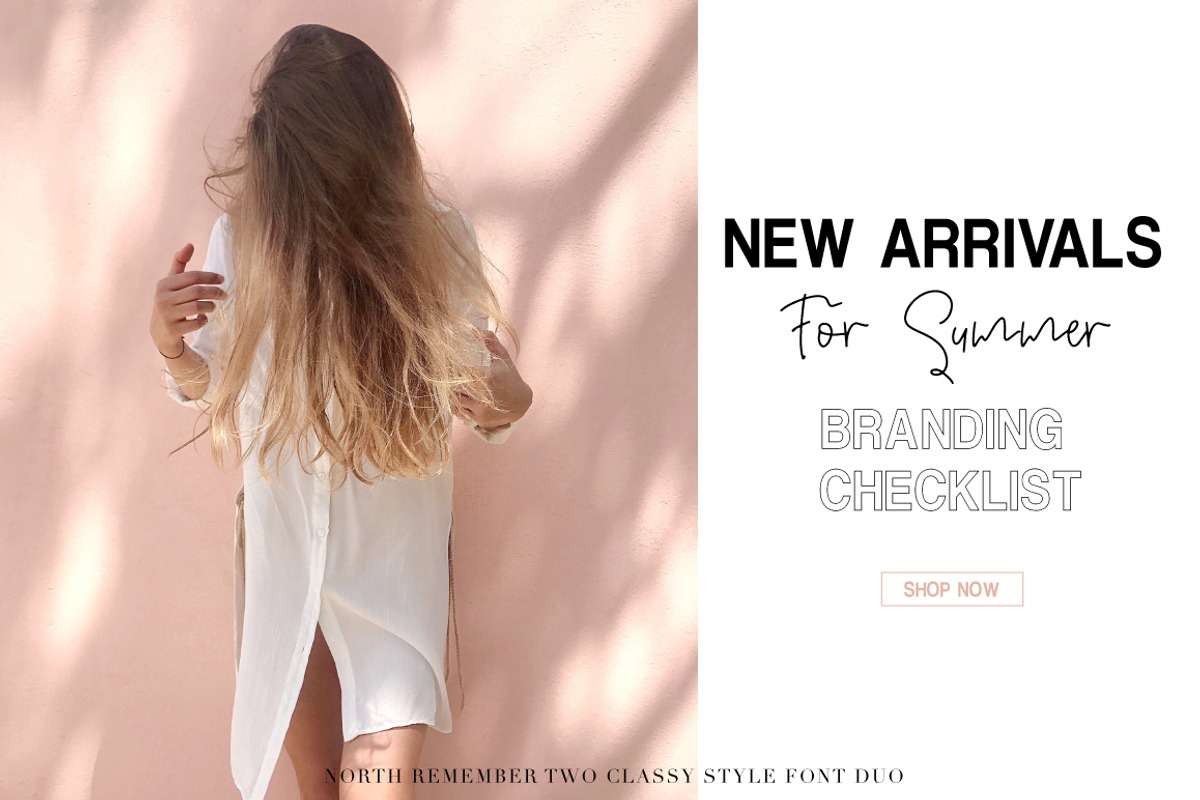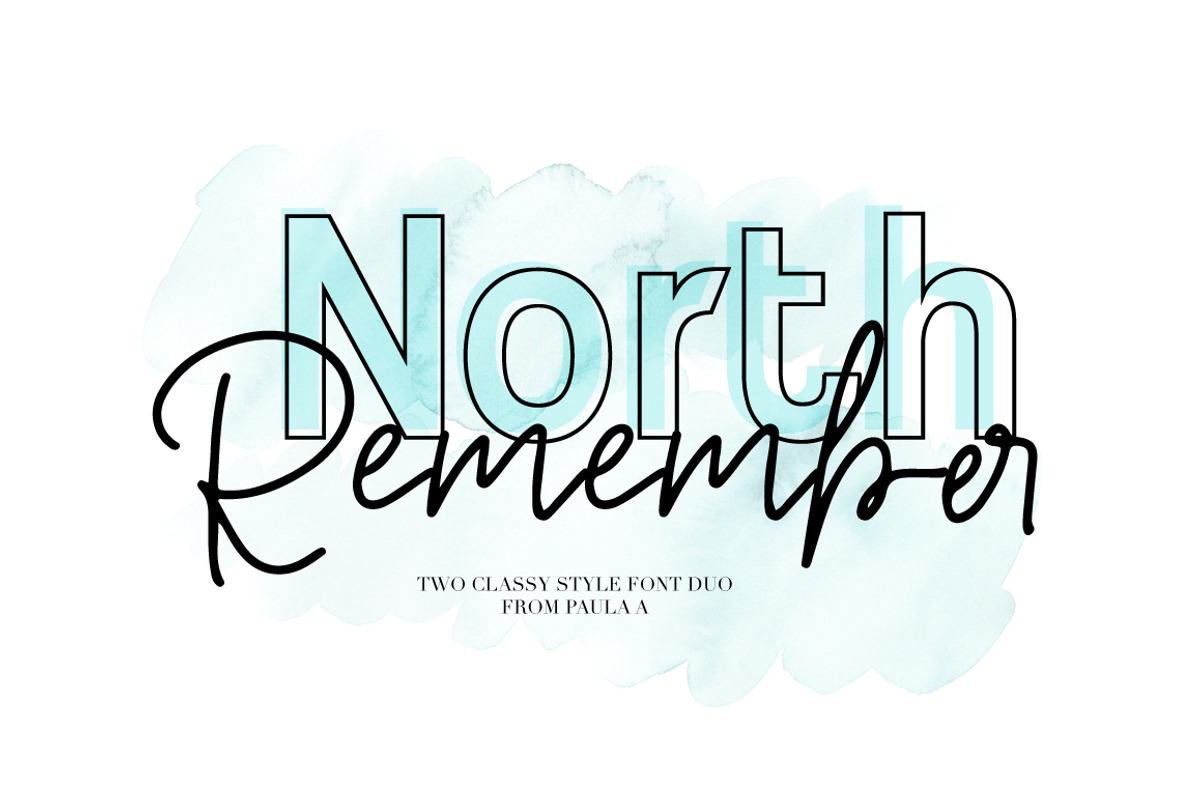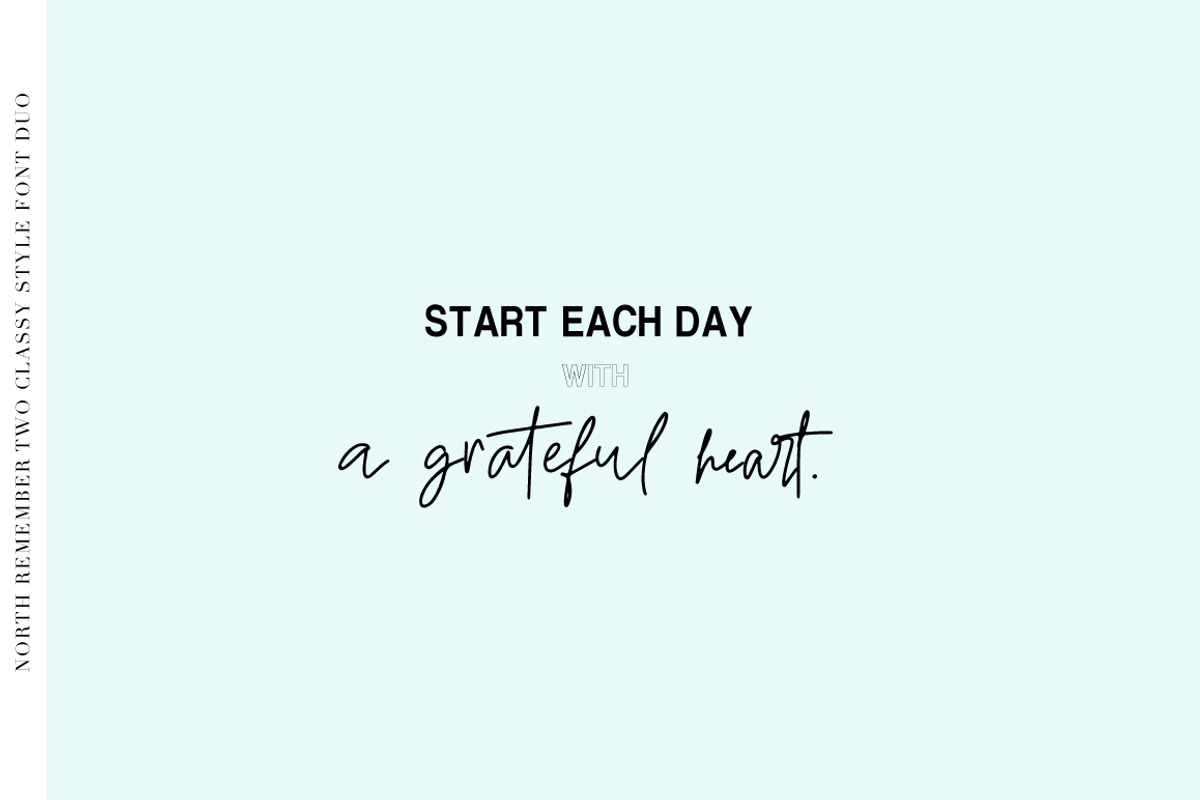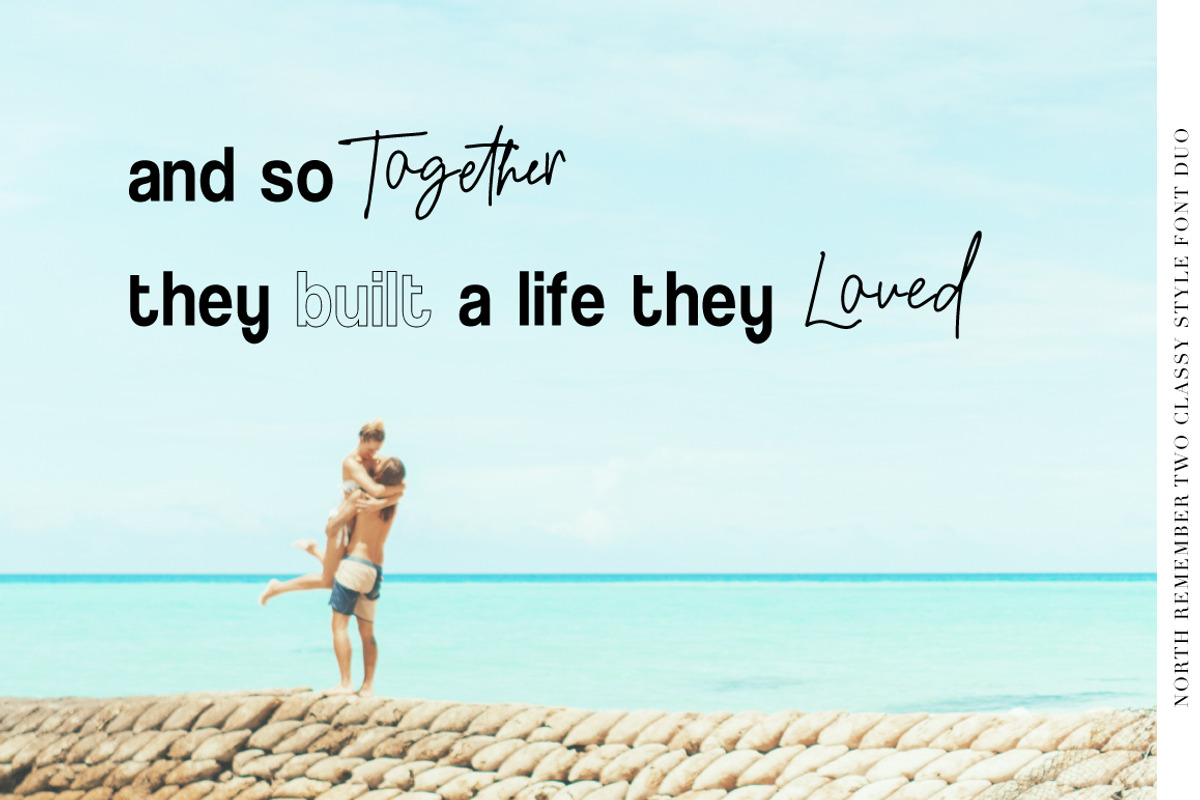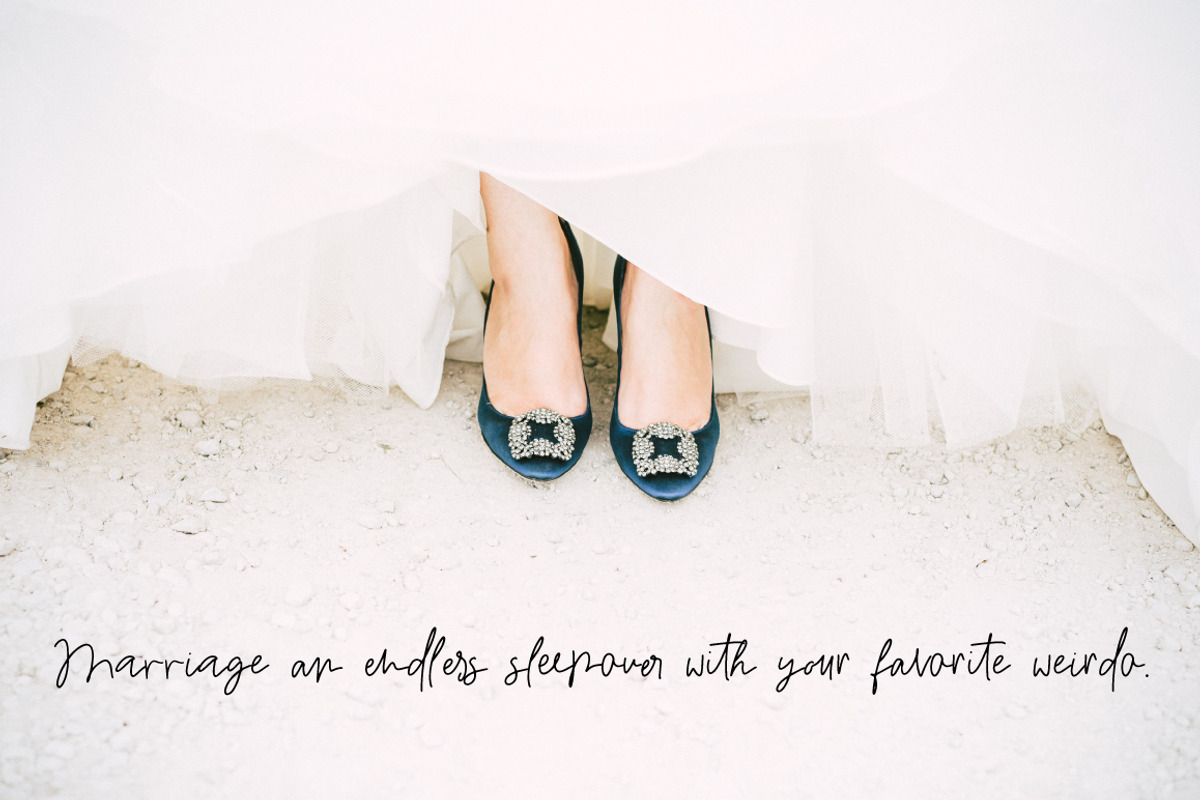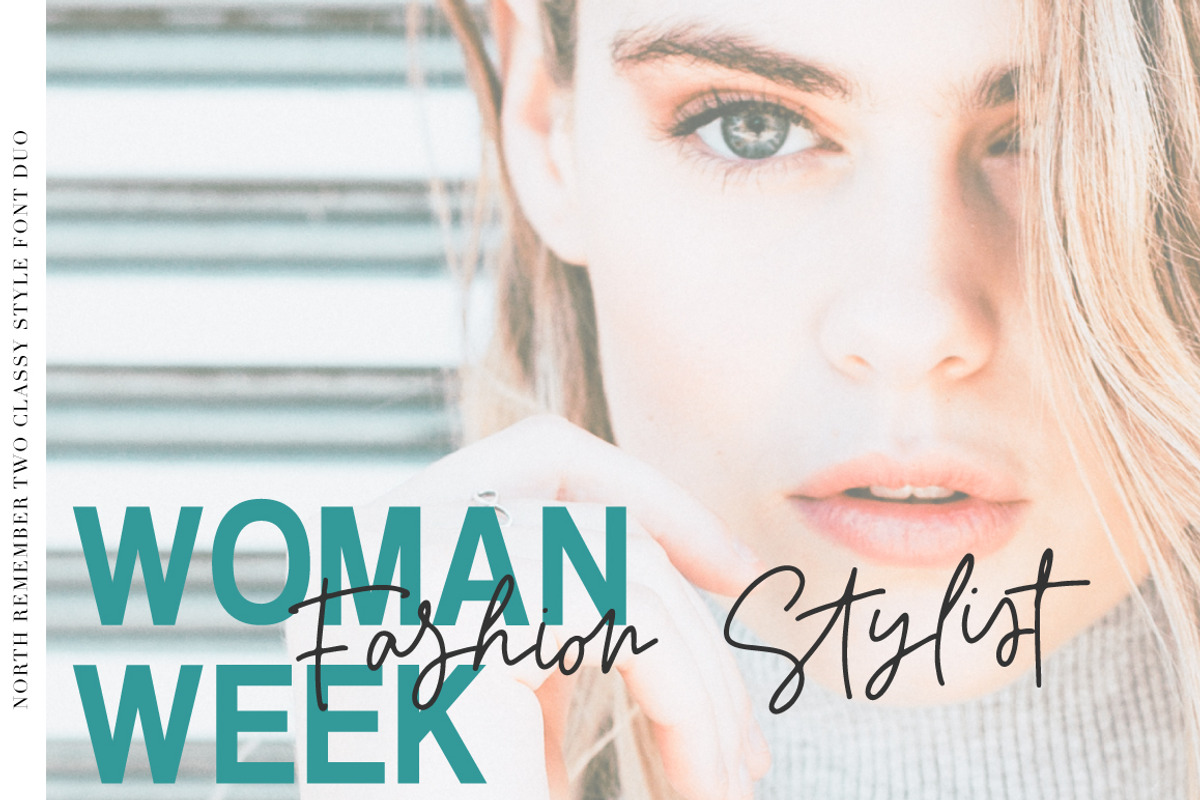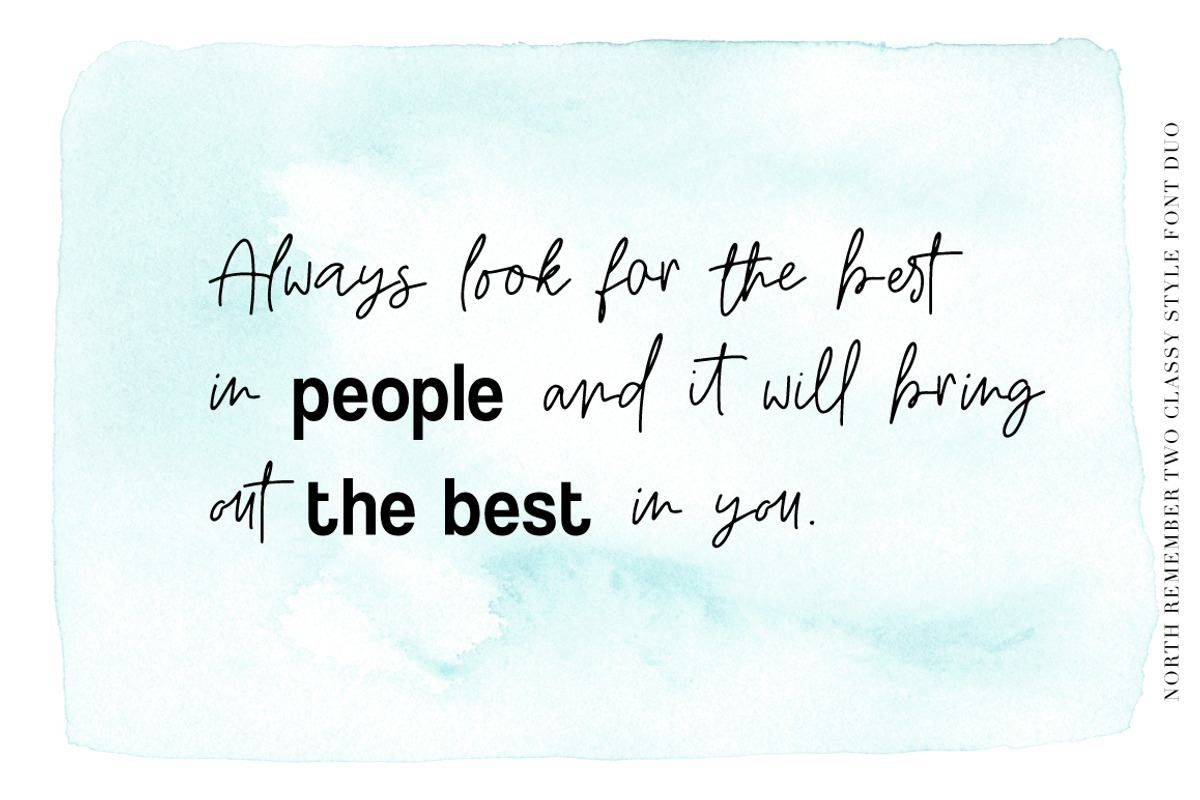
North Remember Font Duo
introducing North Remember font Duo - A fashionable font perfect for high impact headlines
Every single letter has been creative carefully and Perfectly Playful new font pair. This font is a perfect script designed for making your set of invitations, Brand, blog posts, and more completely beautiful
The script has an alternate character set
And you get Ligatures
- North Remember Alt
- North Remember Outline
- North Remember San Serif
- North Remember Script